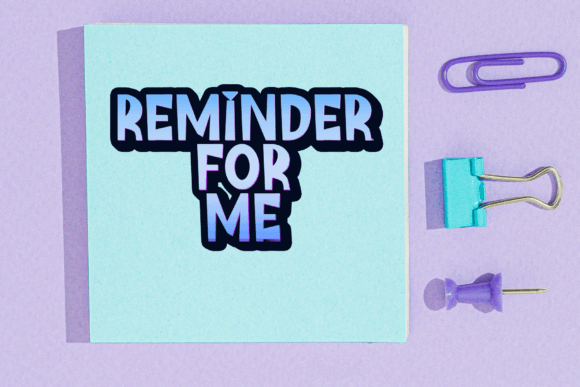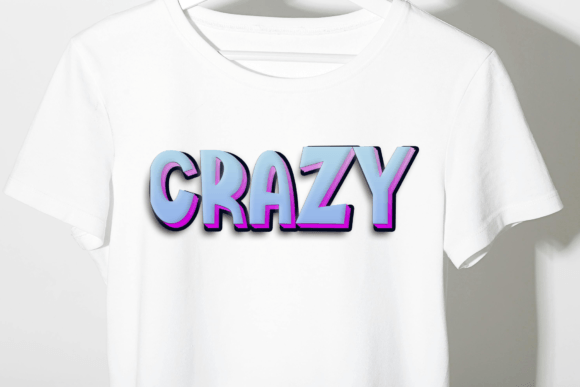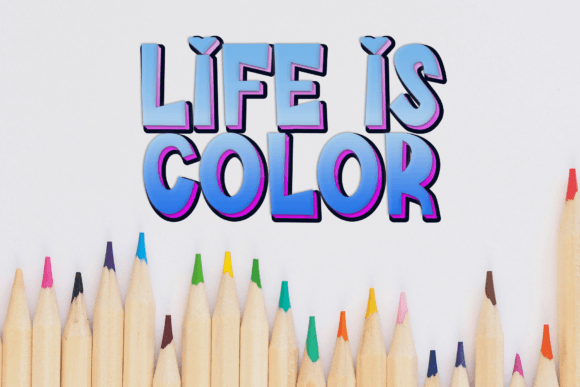
Introduction to Puzzle Battle Font
Have you ever stumbled upon a font that sparks joy and creativity in your design project? For many designers, this moment is like stumbling upon a hidden treasure. It’s the instant when a font’s unique character and playfulness come together to elevate a project from ordinary to extraordinary. This is exactly what the Puzzle Battle Font does – it adds a dash of whimsy and fun to your design, making it perfect for children’s themed projects, educational materials, or even quirky advertisements.
As a valuable resource for designers, the Puzzle Battle Font is a high-quality, PUA-encoded display font that offers an array of amazing glyphs and ligatures. With its transparent background and free download option, this font is a treasure trove of design possibilities. Whether you’re working on a creative project or simply need a fresh design element, the Puzzle Battle Font is an excellent choice that will surely add a delightful twist to your work.
Puzzle Battle Font
- High-quality design resource with a unique, bold, and modern style, ideal for creative projects.
- Transparent background, allowing for seamless integration into various backgrounds and designs.
- Features a large character set, including uppercase and lowercase letters, numbers, and punctuation marks.
- Perfect for use in gaming, puzzle, and action-themed projects, as well as in titles, headings, and other display fonts.
Honest Review: Puzzle Battle Font
I recently stumbled upon the Puzzle Battle Font and I must say, it’s been a game-changer for my creative projects. The font is free to download, which is always a plus, and it comes with a transparent background, making it super easy to incorporate into any design.
- What works well: ✨ The font is super versatile and can be used for a wide range of creative projects, from gaming and entertainment to education and marketing. It’s also available in various weights and styles, making it easy to customize to your needs.
- What works well: ✨ The high quality of the font is impressive, with crisp and clean lines that make it perfect for digital use. It’s also scalable, so you can use it for anything from business cards to billboards.
However, I did encounter a few limitations. ⚠️ The font doesn’t come with a lot of punctuation options, which can be a bit of a bummer if you’re working on a project that requires a lot of special characters. Additionally, the font is only available in a few languages, which may limit its use for international projects.
Overall, I’m really impressed with the Puzzle Battle Font. It’s a great addition to any designer’s toolkit, and I would highly recommend it for any creative project that requires a fun and playful vibe. Just be aware of the limitations, and you’ll be good to go!
Puzzle Battle Font
The Puzzle Battle Font is a high-quality design resource perfect for creative projects that require a unique and engaging visual style. This free download features a transparent background, making it easy to customize and integrate into your design.
The Puzzle Battle Font is perfect for:
- Video game and esports-themed designs.
- Adventure and puzzle game graphics.
- Children’s book and educational materials.